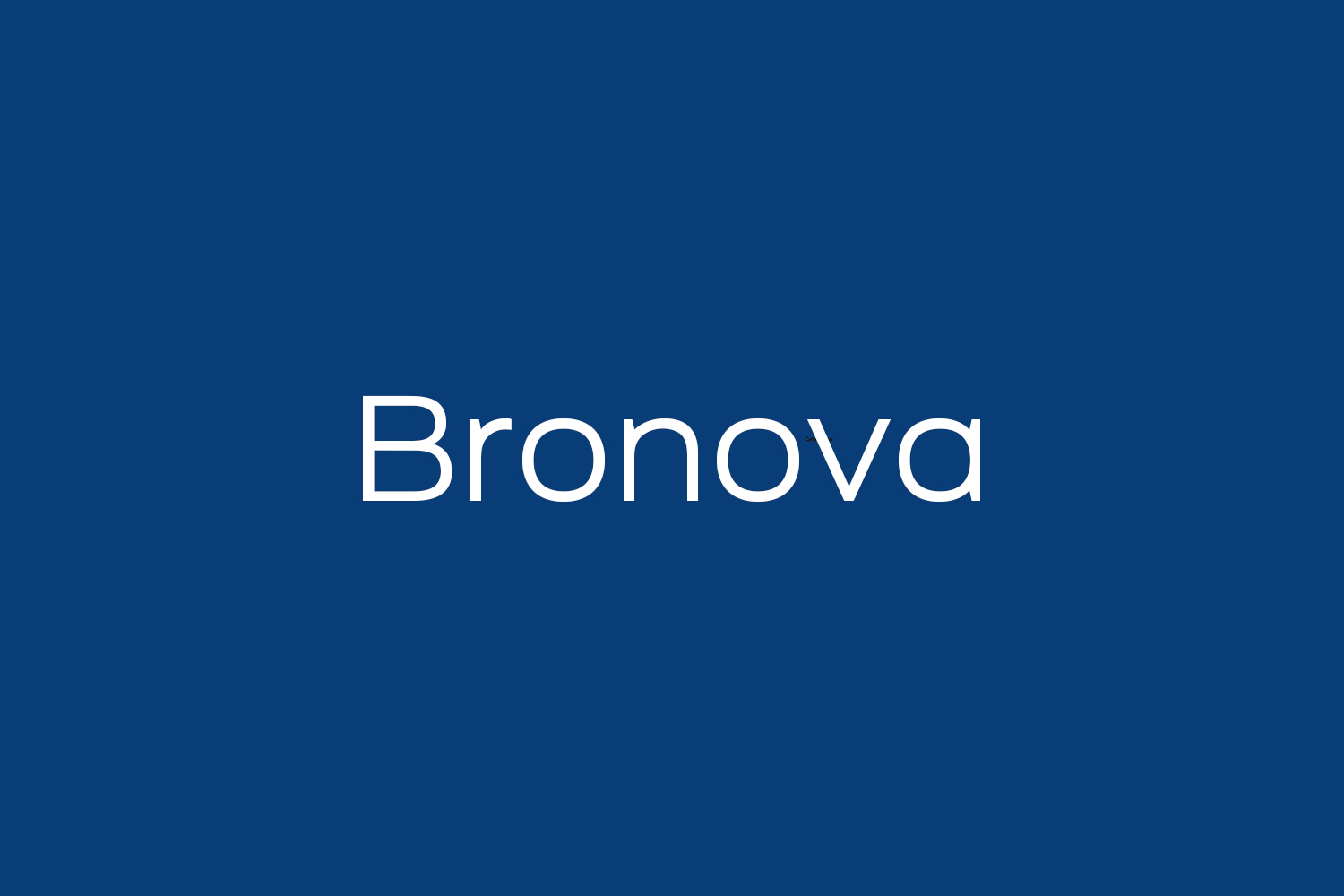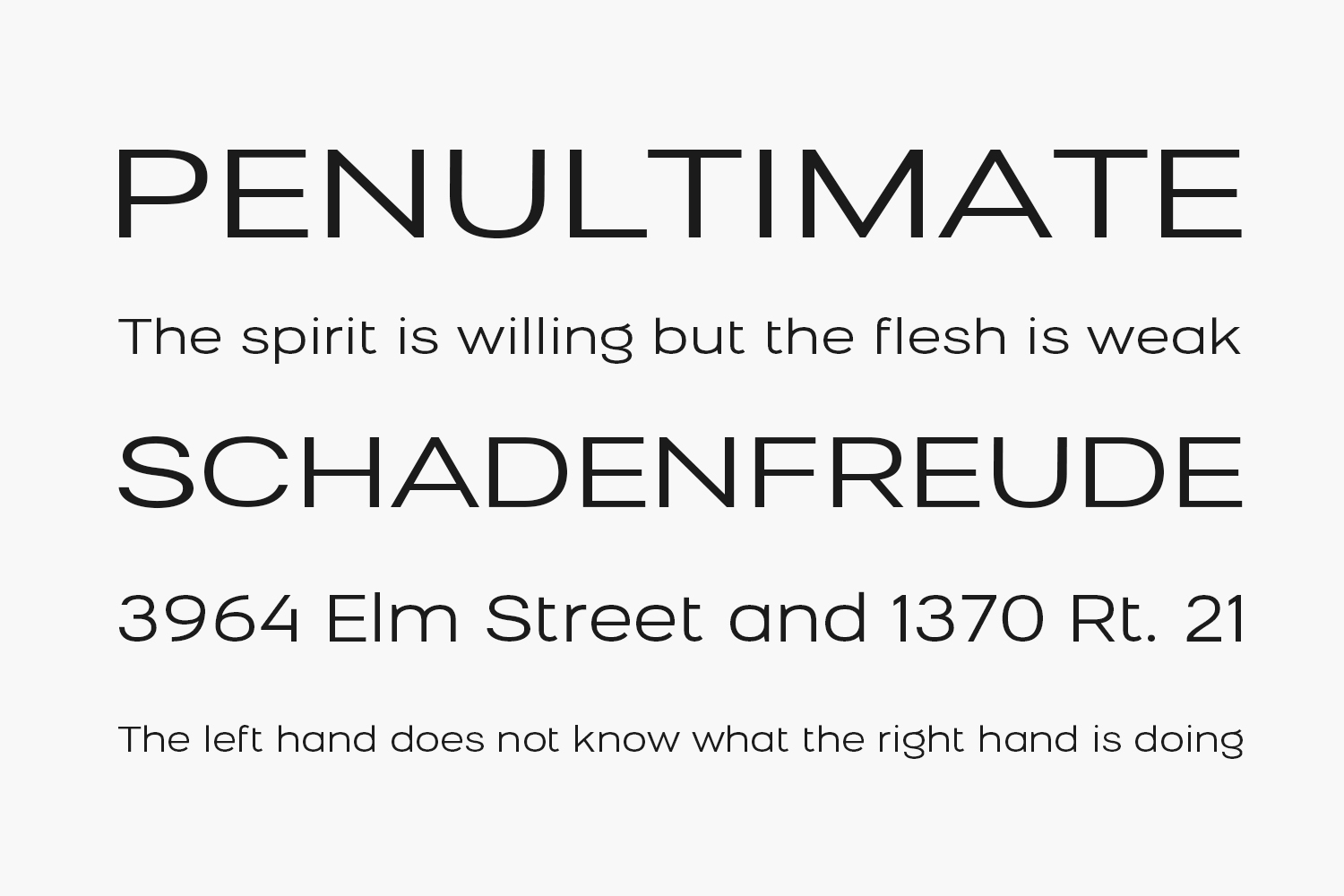
Bronova Free Font Family was designed by DesignBro Ltd and is free for personal or commercial use. Bronova Free Font Family is based on the ‘natural curve’ that can be drawn from the wrist. It’s a much smoother curve than the standard computer-generated curve.
Bronova Regular The quick brown fox jumps over the lazy dog
Bronova Bold The quick brown fox jumps over the lazy dog